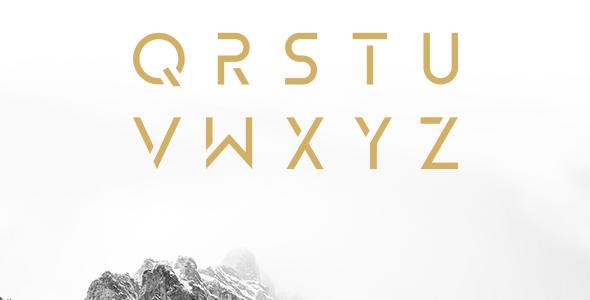
ZELDA Typeface (REGULAR)
Hello Guys! I’m really exited to share my new typeface ’’ZELDA”! ZELDA IS AN MINIMAL DISPLAY TYPEFACE INSPIRED BY THE CLASSIC SANS SERIF FONT FAMILY. THIS TYPEFACE IS PERFECT FOR LOGOTYPES/POSTERS AND HEADLINES. BUY FULL FAMILY : http://graphicriver.net/item/zelda-typefamily/13207394 FILES INCLUDED: ZELDA REGULAR with OTF and TTF. Screenshots Follow me on Instagram & Behance to get the latest updates on new typefaces and chances to win new stuff. http://instagram.com/itsj3world https://www.behance.net/j3world Thanks, j3